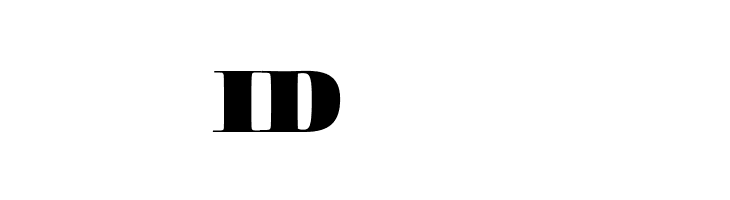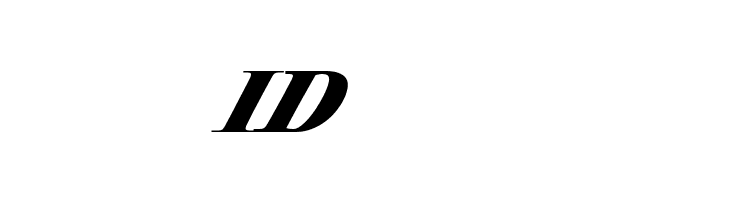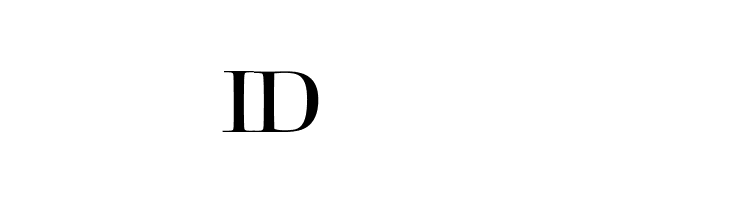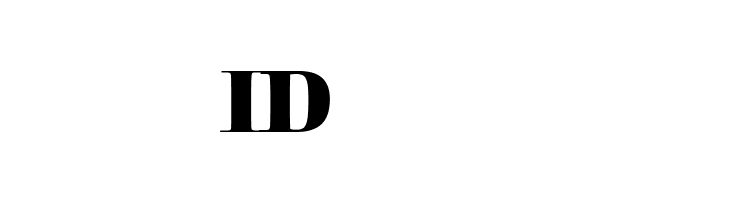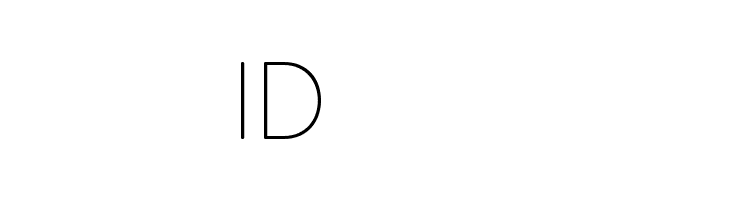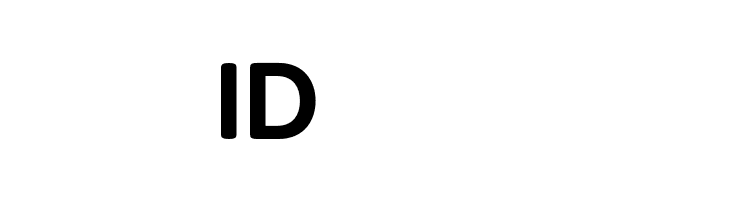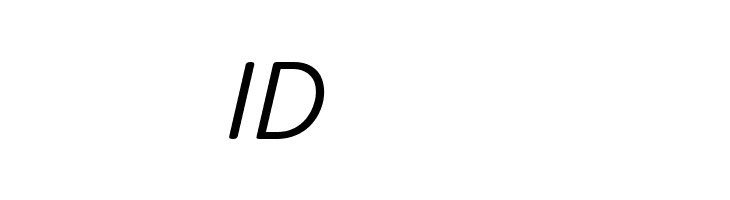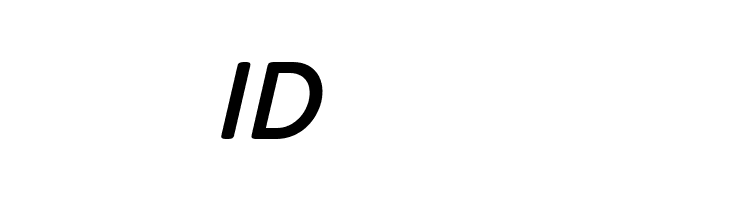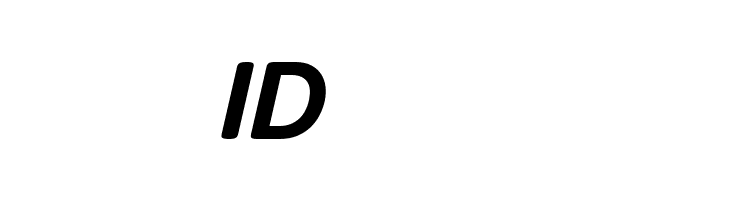
A bold, high-contrast serif font with sharp serifs and a commanding presence.
A bold, italic serif font with elegant curves and pronounced serifs.
A classic serif font with elegant strokes and balanced proportions.
A bold, high-contrast serif font with a classic and elegant style.
A modern, thin, rounded font with a clean and minimalist design.
A modern, rounded typeface with smooth curves and a friendly appearance.
A modern, rounded, light italic font with smooth curves and clean lines.
A modern, rounded italic font with a smooth and clean appearance.
A rounded, medium-weight italic font with a friendly and modern style.
A modern, rounded font with a clean and approachable design.